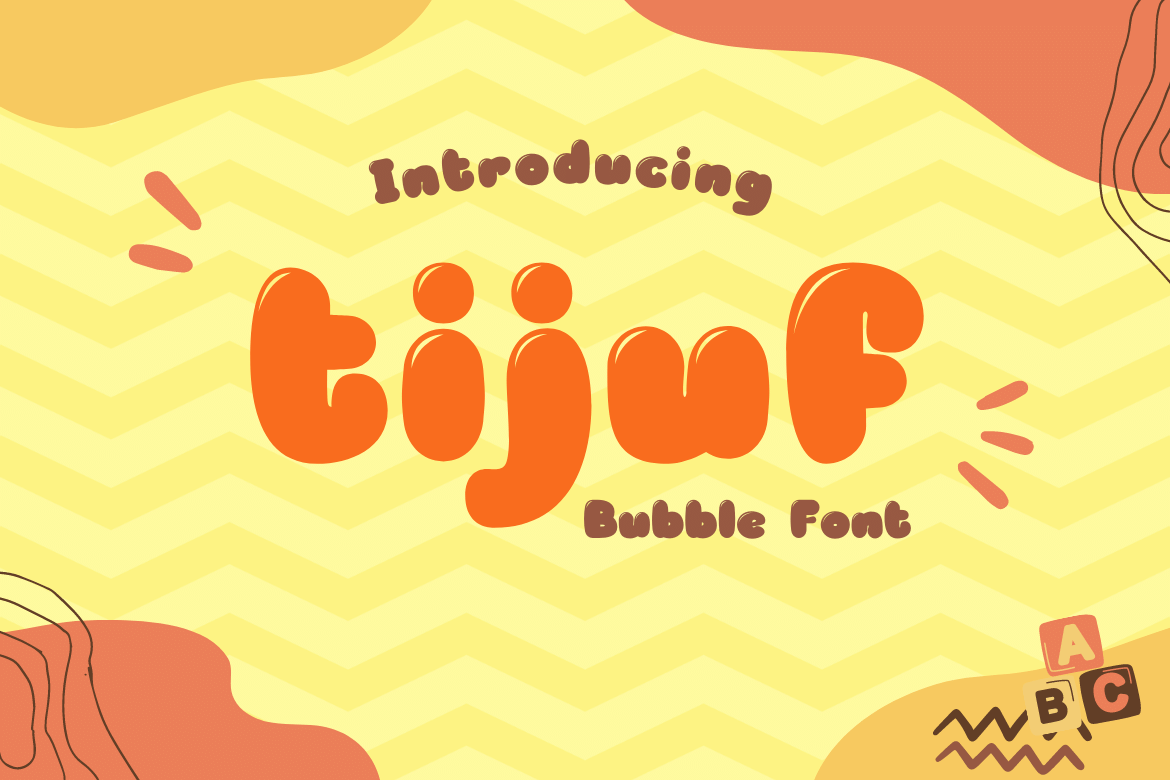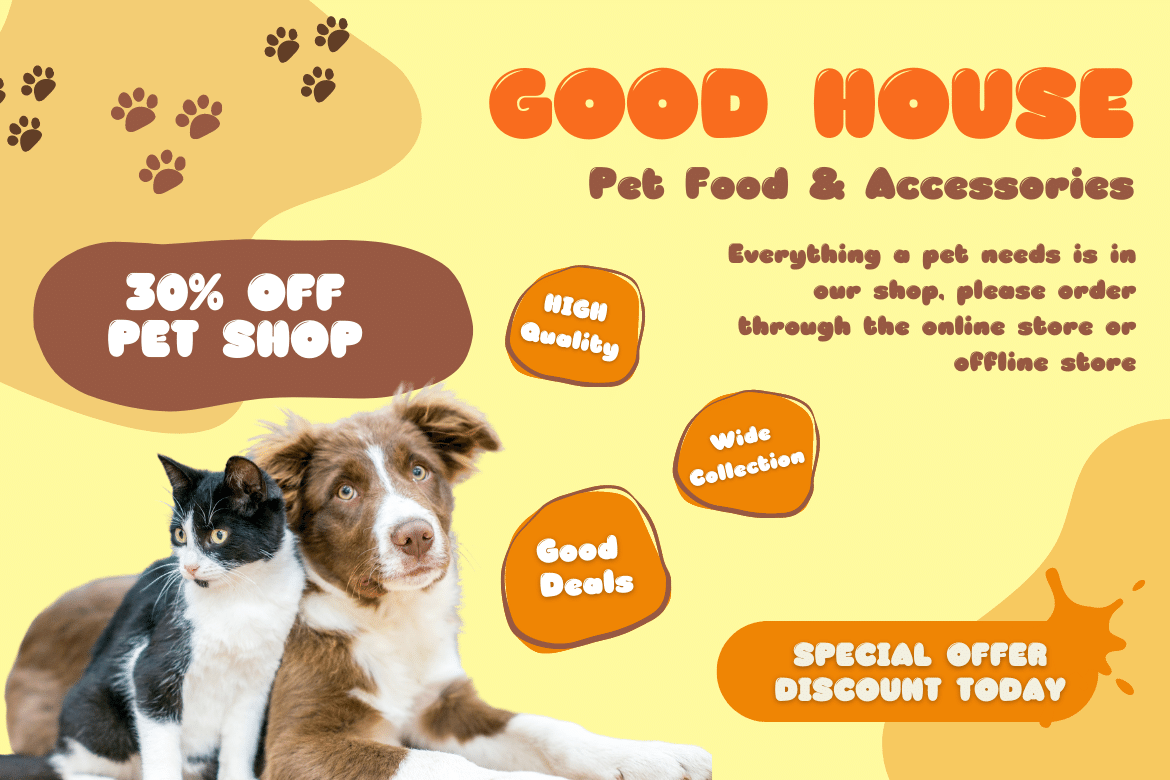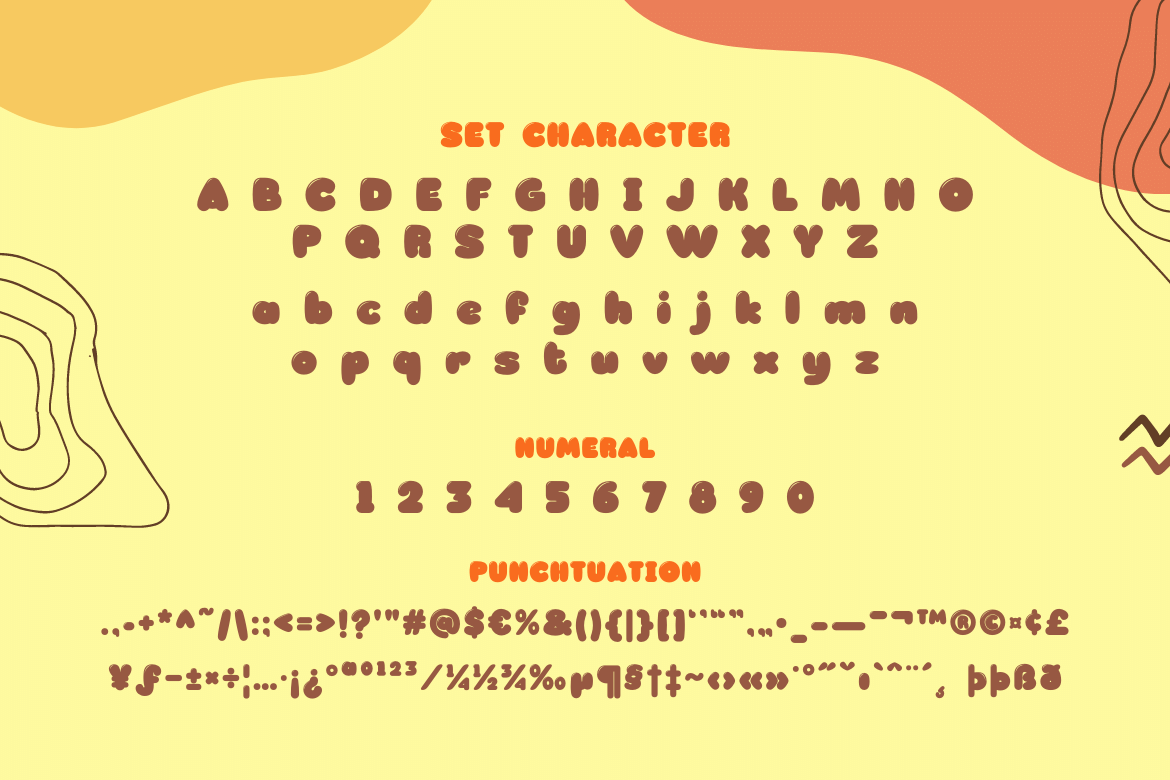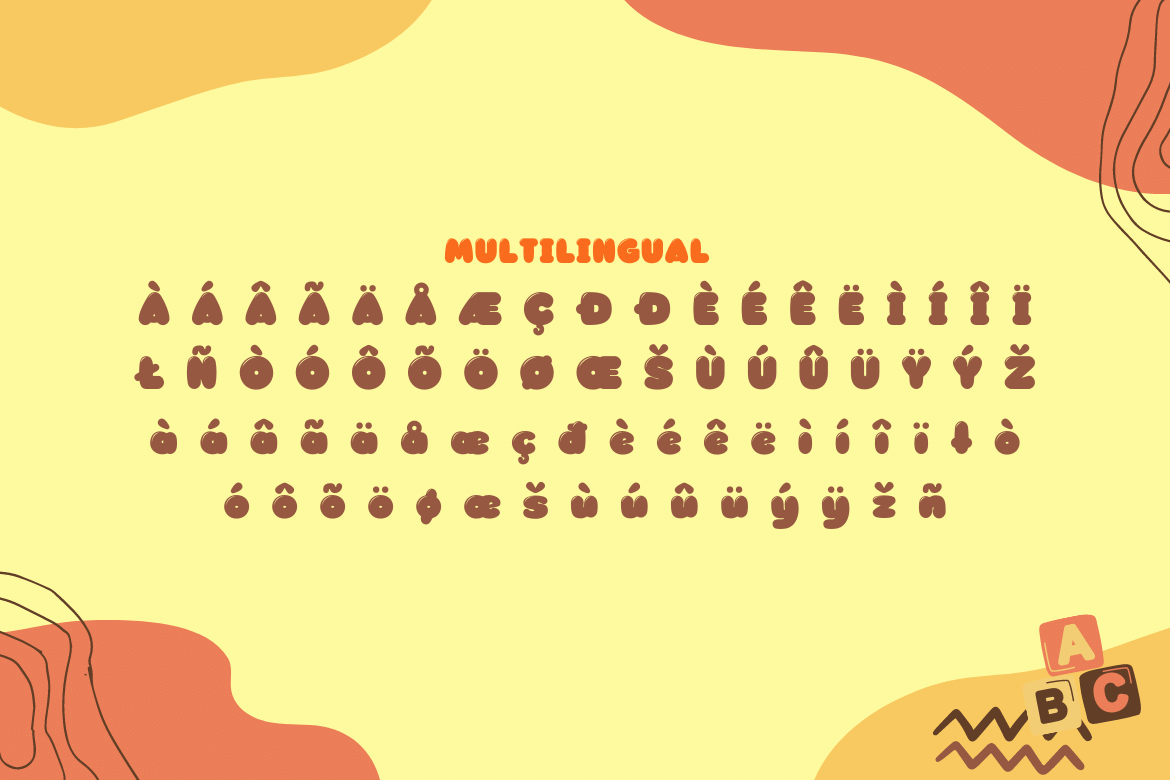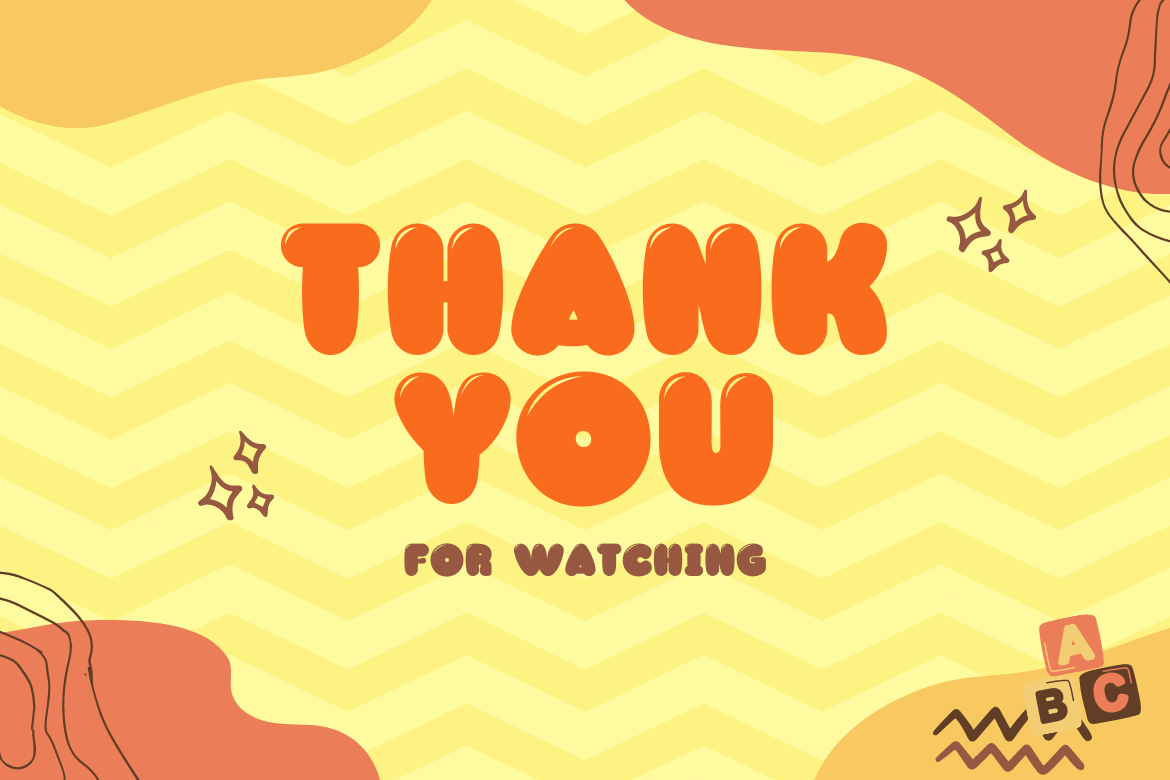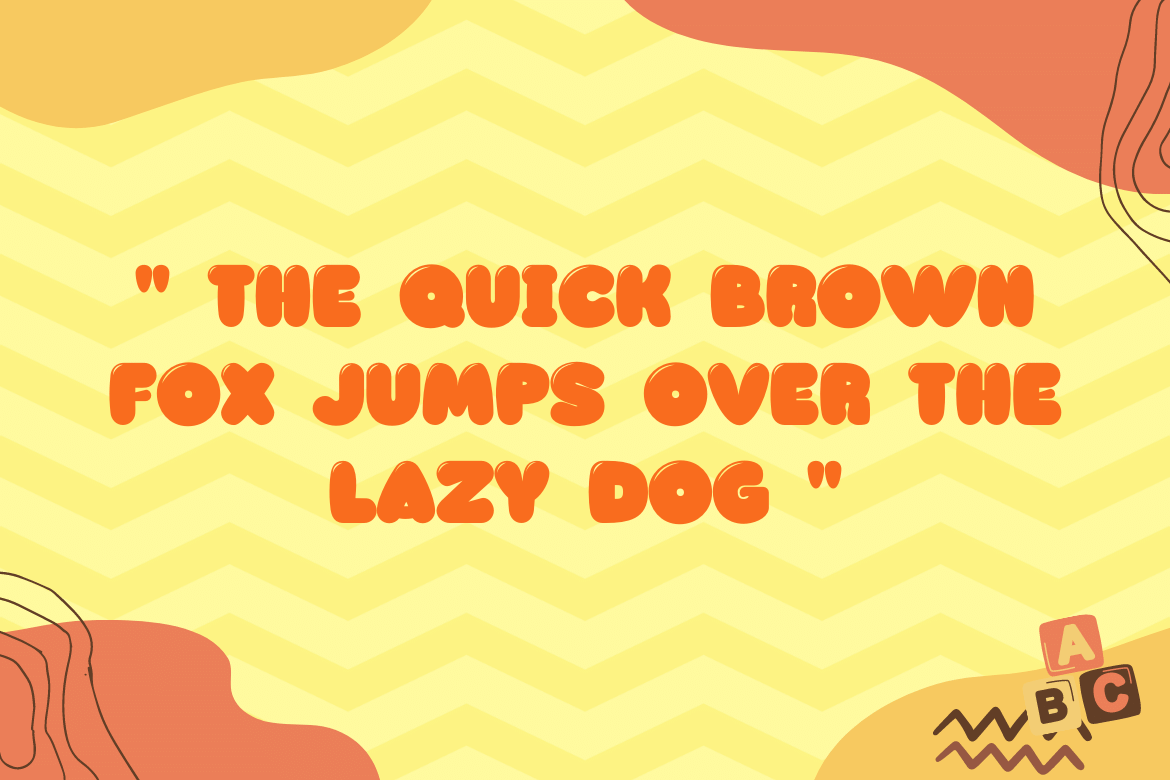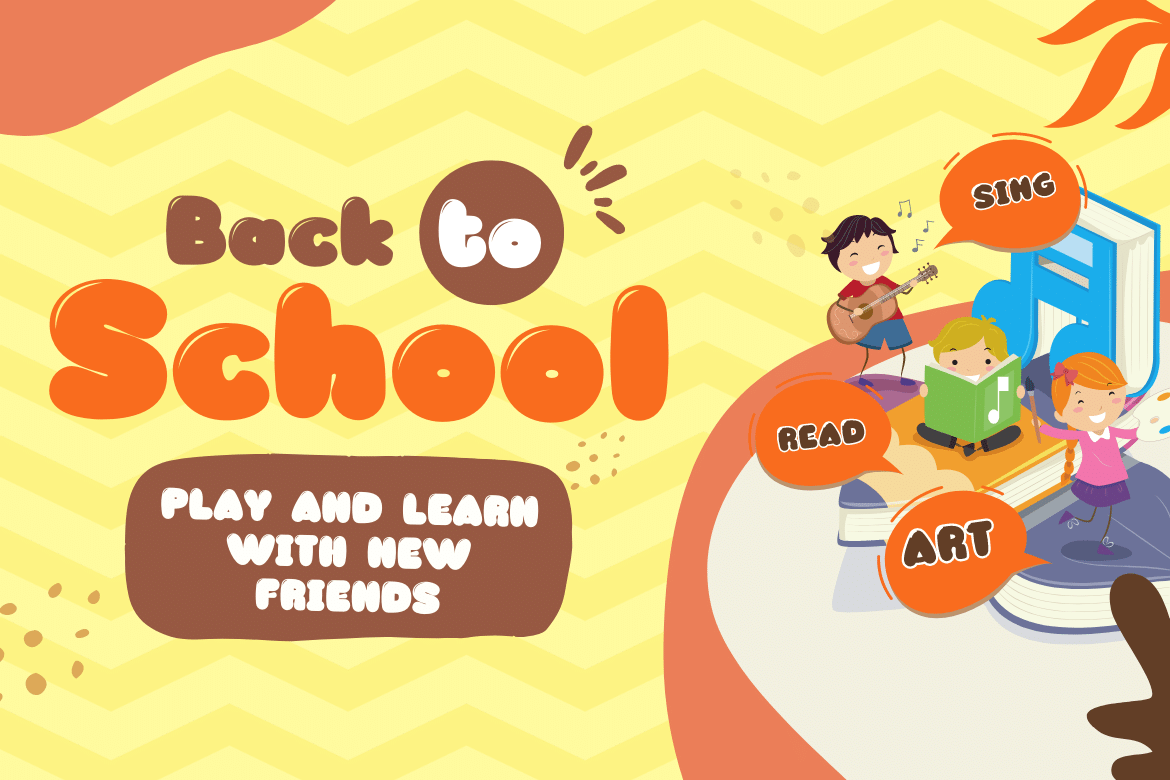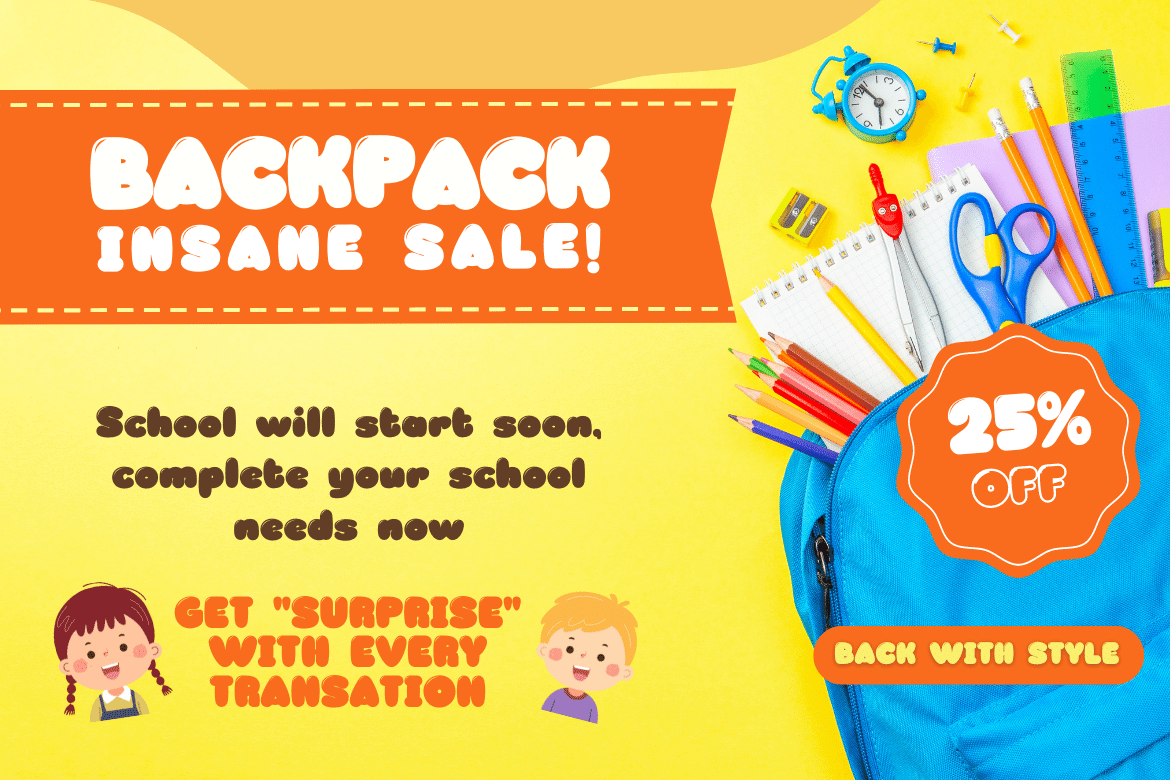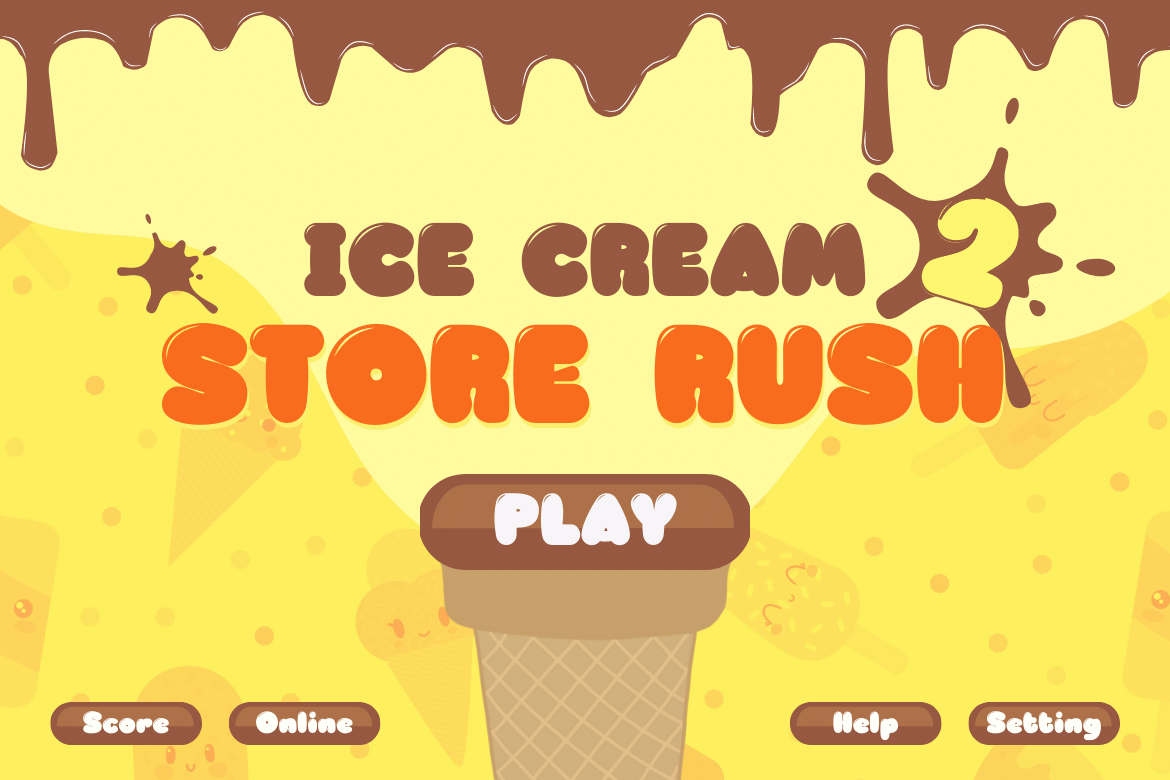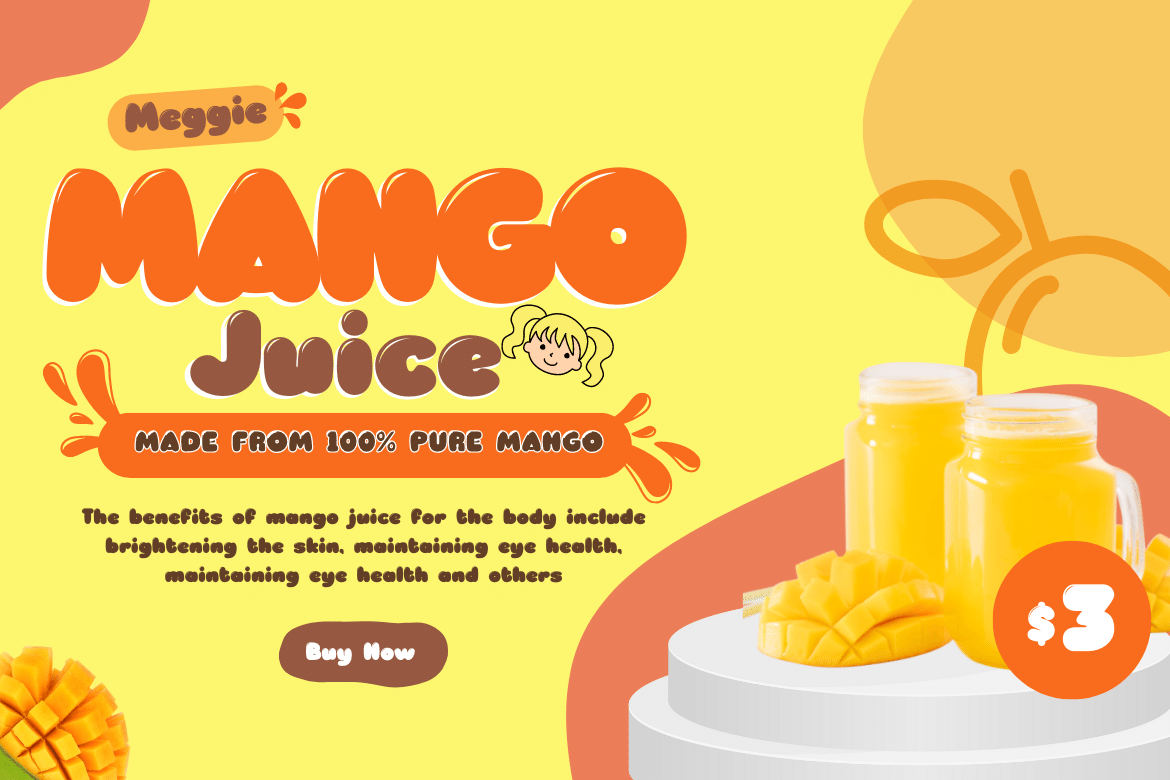
tijuf
Introducing our newest display font, Tijuf, this font designed with a unique and creative shape gives you the ease of use in a variety of your project needs. designed in a fun, cheerful, and unique style. When used in conjunction with other fonts in our collection, it gives you the ability to create unique, captivating, and highly impressive visual displays.
• Fonts include multilingual support for; Afrikaans, Albanian, Croatian, Czech, Danish, Dutch, English, Estonian, Finnish, French, German, Hungarian, Italian, Norwegian, Polish, Portuguese, Slovak, Slovenian, Spanish, Swedish